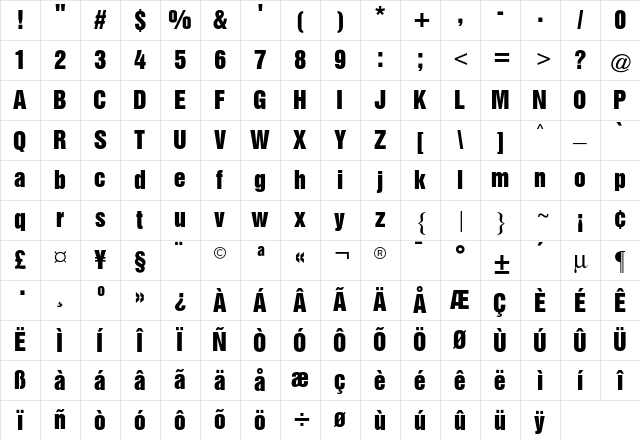
Complete Triumvirate CG Inserat Regular glyph index. Displaying only characters natively supported by Triumvirate CG Inserat Regular font.
Triumvirate CG Inserat is a composed and adaptable typeface that performs quietly and consistently across a wide range of design contexts.
Pro Tip: Use Triumvirate CG Inserat in both headline and body roles to test its range before committing to a single application.